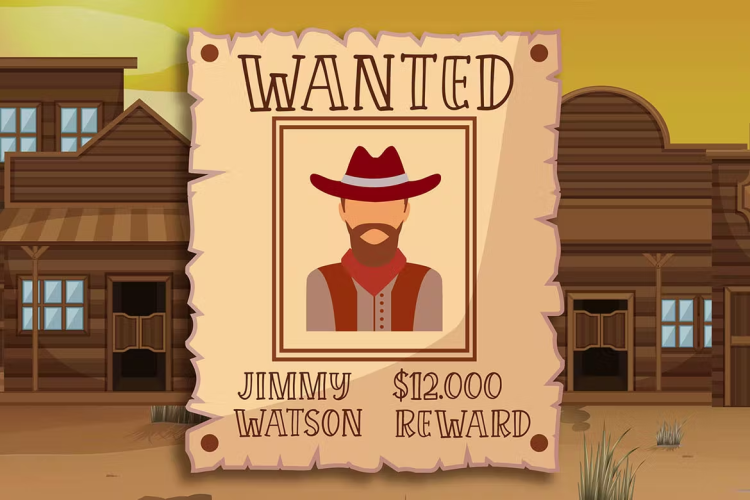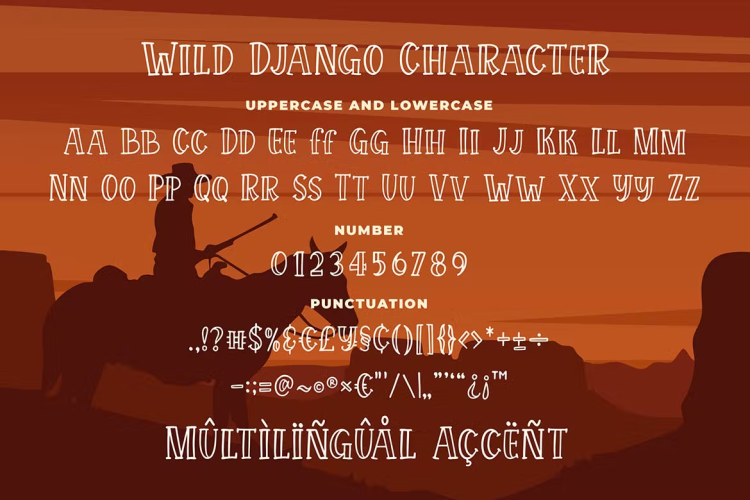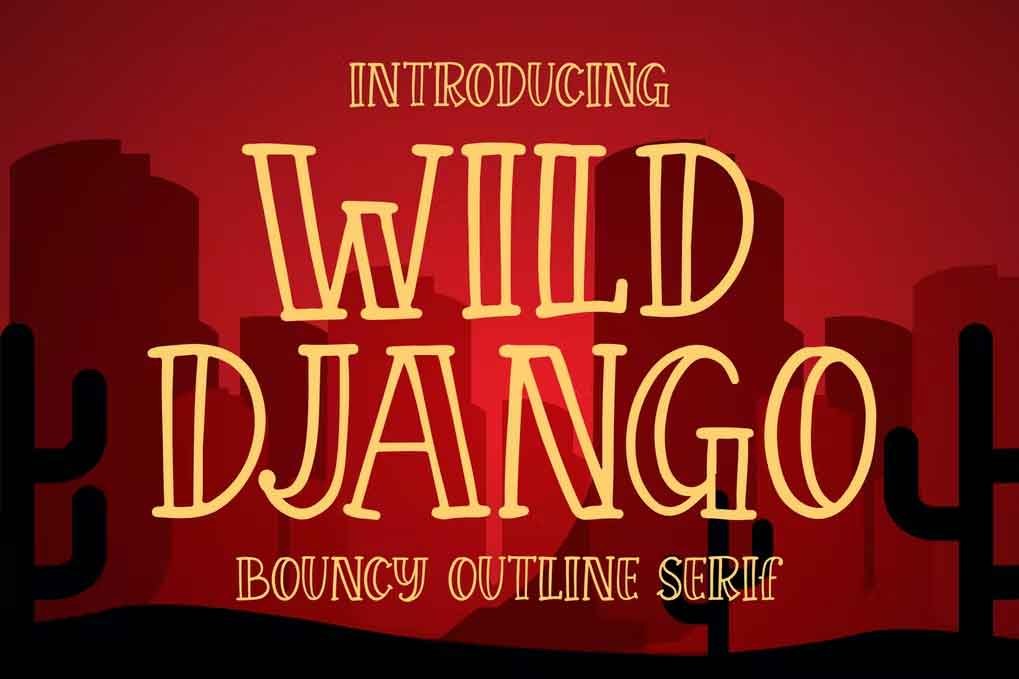
Wild Django Font
Introducing of our new product the name is Wild Django Bouncy Outline Serif. Wild Django very good for tattoo, kids poster, flyer childrenbook, cartoon, comic etc
Where Wild Django Font works best
Wild Django Font gives long-form text a classic, trustworthy rhythm — ideal for magazine spreads, annual reports and book interiors.
Pair Wild Django Font with generous letter-spacing for wordmarks in fashion, hospitality, wine and jewellery branding.
Use Wild Django Font for slide titles in Keynote, PowerPoint or Google Slides to add authority without looking dated.
What is Wild Django Font good for?
Wild Django Font is a Serif Fonts typeface tagged Headlines, Playful, Poster, Professional. It works well for headlines, logos, posters, social media graphics and branding projects that need a distinctive serif fonts look.